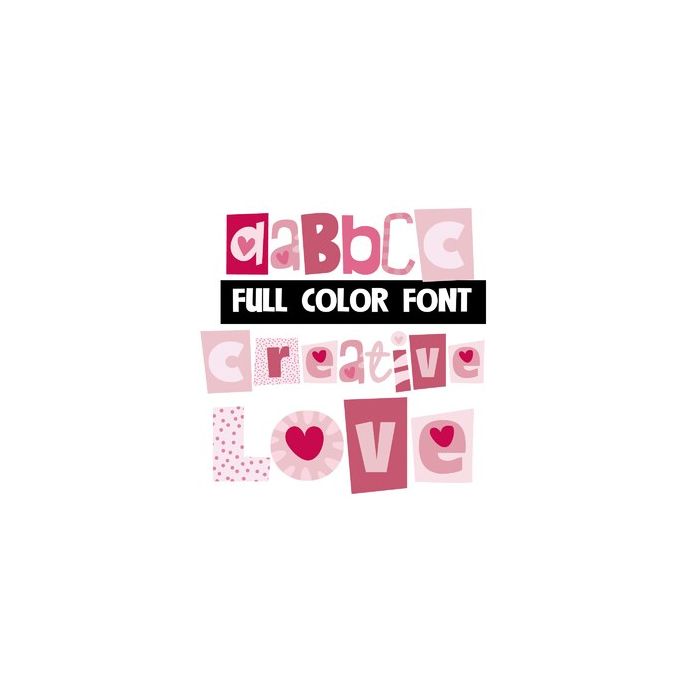
This full-color font features pink, mixed lettering. This font works best for titles, displays, posters and more. Please note color fonts will show as black in non compatible programs. This font type is compatible with Silhouette Studio.